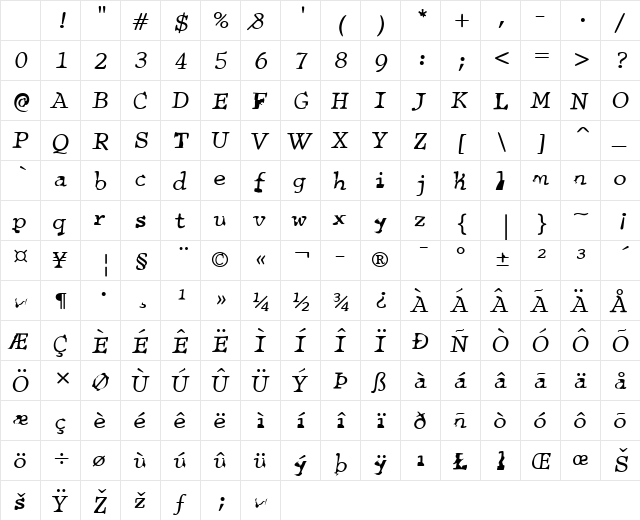
Complete BottleRack Medium glyph index. Displaying only characters natively supported by BottleRack Medium font.
BottleRack is a composed and adaptable typeface that performs quietly and consistently across a wide range of design contexts.